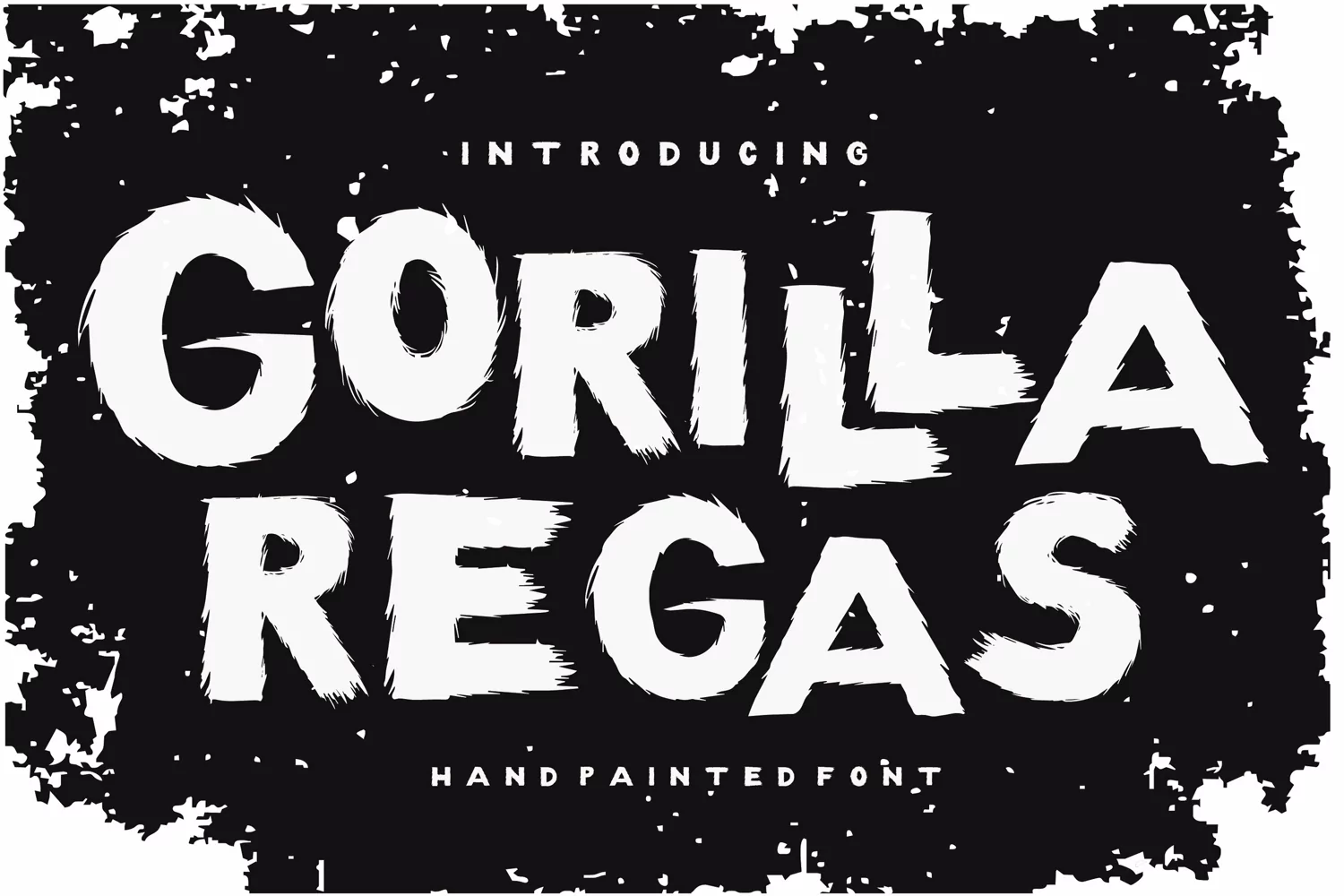
Gorilla Regas
Gorilla Regas is a cool, rough-textured, and urban-style display font. This modern handpainted font features hairy-looking font characters. It is suitable for designs such as t-shirts, sportswear, logos, advertisements, clothing, and more.